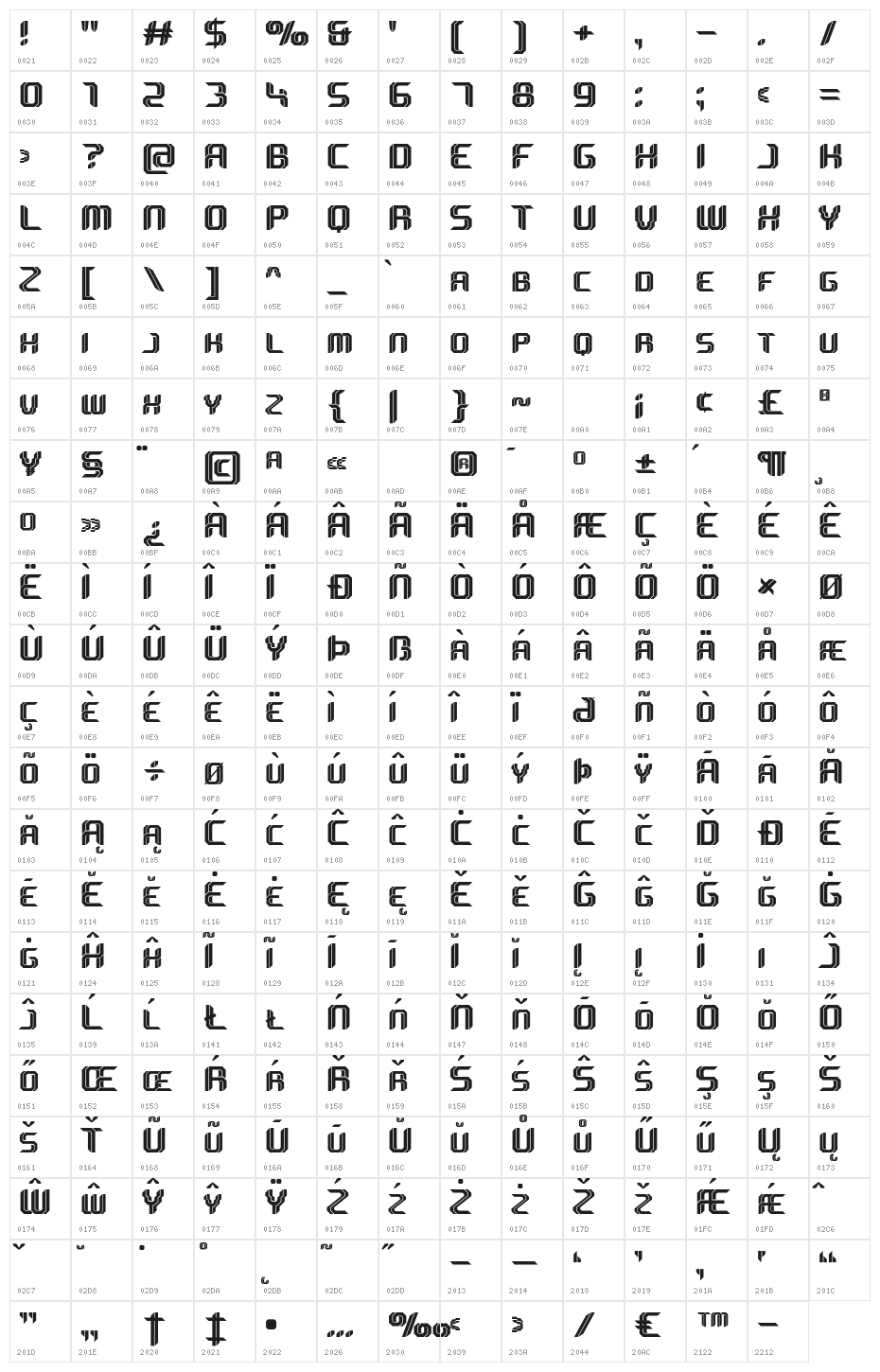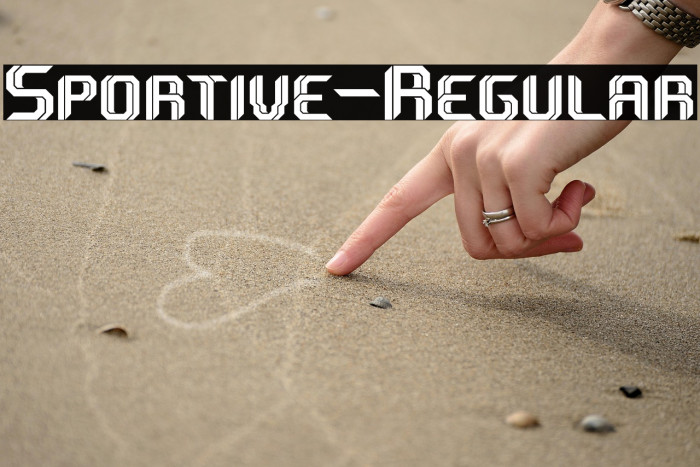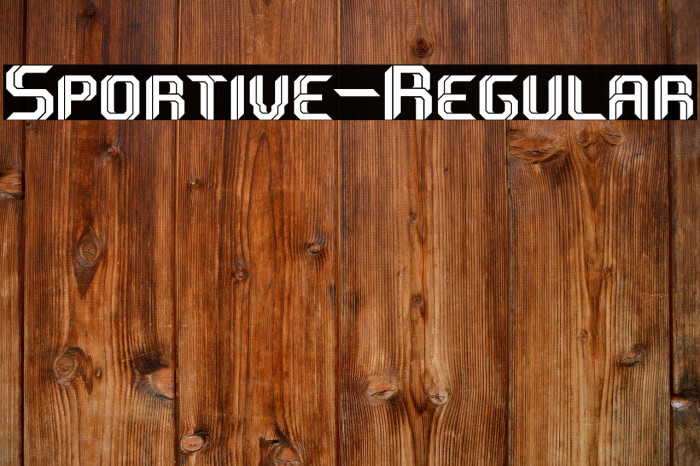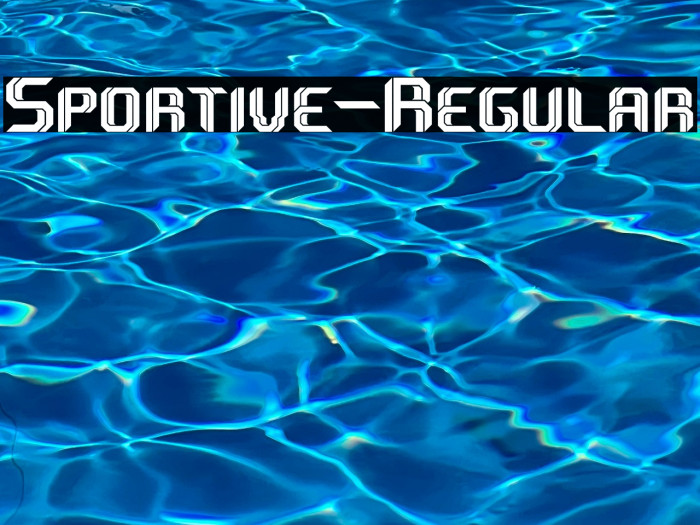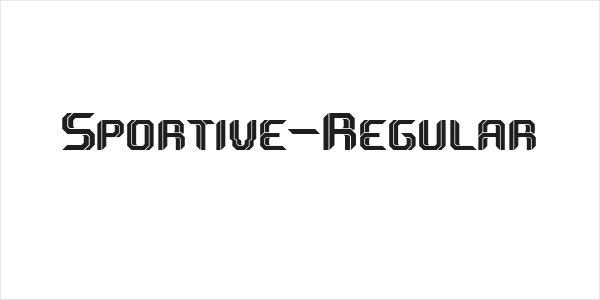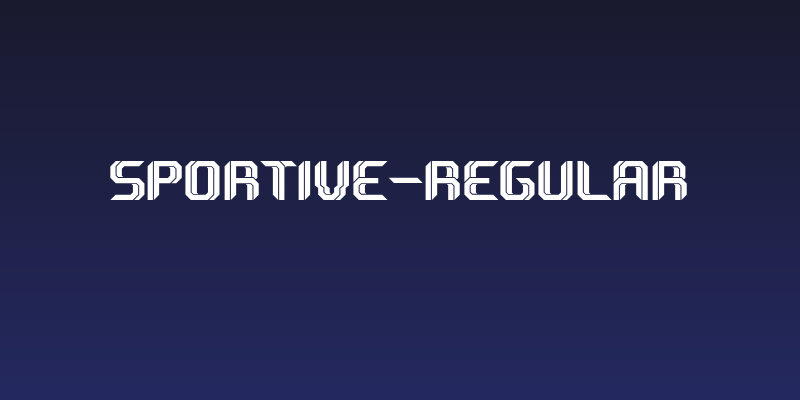
Sportive-Regular Font
Sportive-Regular Description
This font features a bold, geometric design with a strong emphasis on angular shapes and a futuristic aesthetic. The characters are constructed with thick, block-like strokes that create a sense of solidity and strength. The design incorporates sharp angles and cut-out sections, giving it a dynamic and modern look. The uppercase and lowercase letters maintain a consistent style, with a uniform width and height that enhances readability. The numerals and special characters follow the same design principles, ensuring a cohesive appearance across all elements. This font is ideal for projects that require a bold and impactful visual statement.